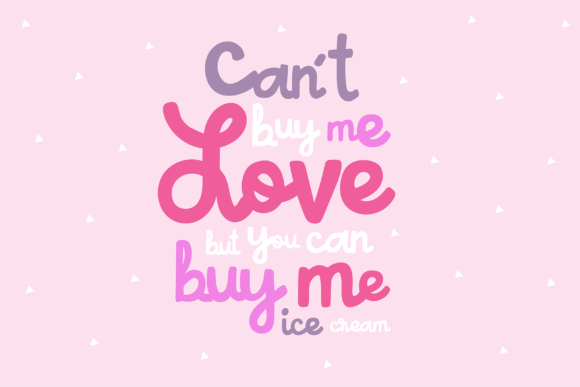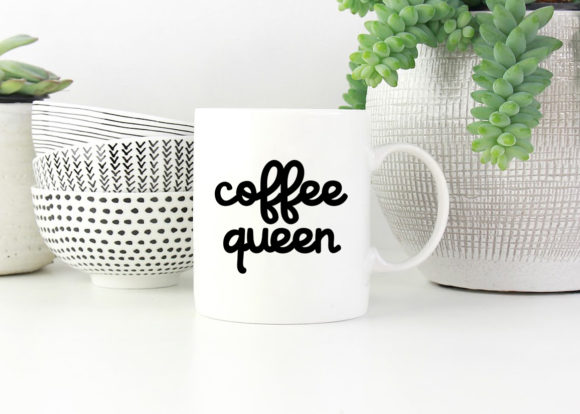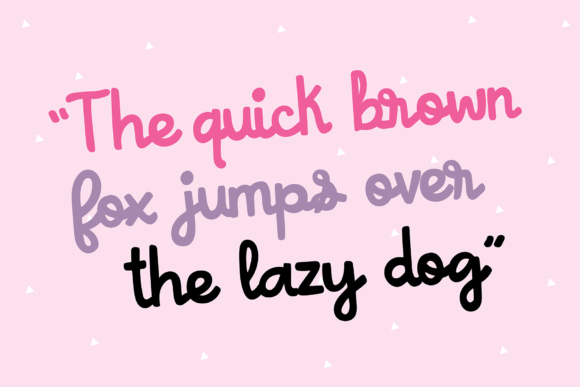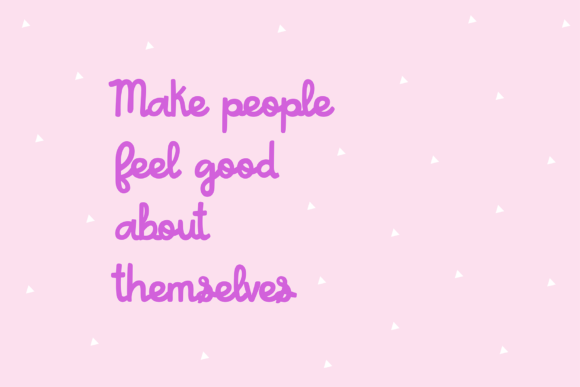
Ana Nicole Font
About Ana Nicole Font
Ana Nicole is a sweet handwritten font, designed with the help of a beautiful brush pen. Fall in love with its versatile style and use it to create spectacular designs!